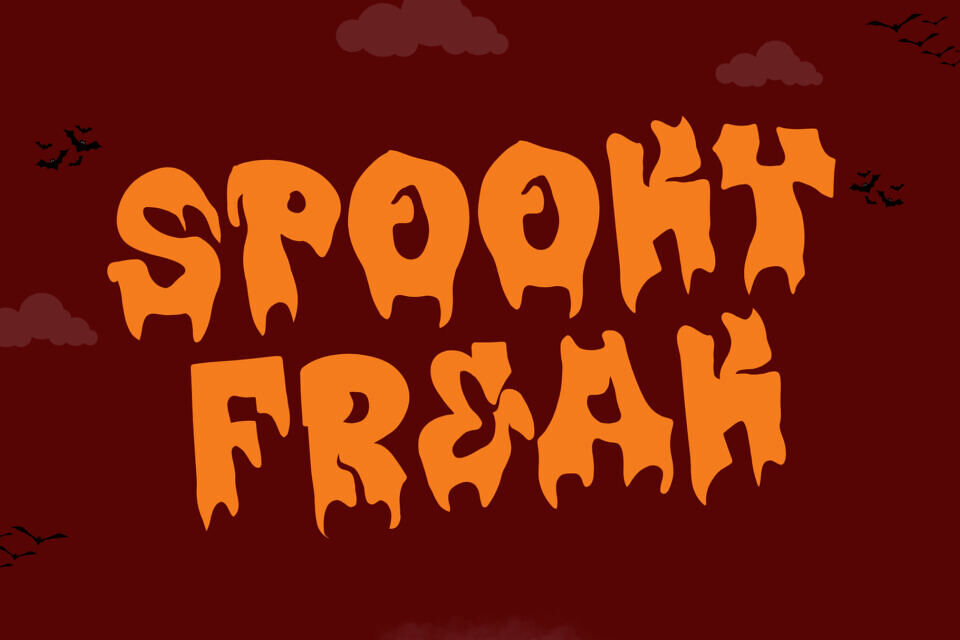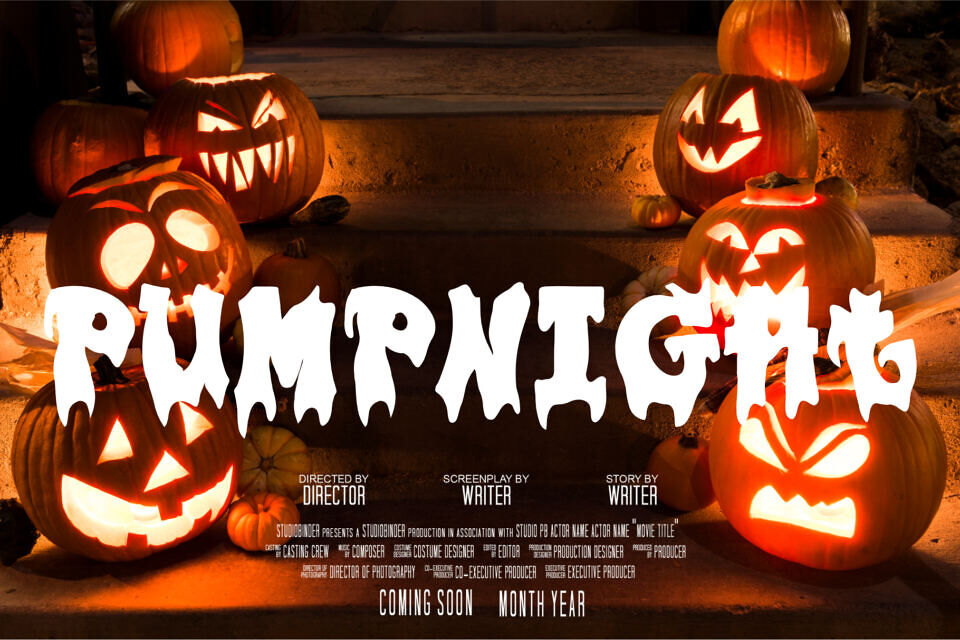
Plump Drip Font
Plump Drip Font brings gooey, high-impact letters to posters, shirts, stickers, and spooky social posts. Rounded bubble shapes melt into playful drips, so every word feels bold and fun.
Because counters stay wide and spacing is even, your titles read clearly on thumbnails and still look dramatic on large prints. Use it for Halloween graphics, slime-themed birthday decor, streetwear drops, haunted event flyers, horror-comedy thumbnails, and candy shop labels.